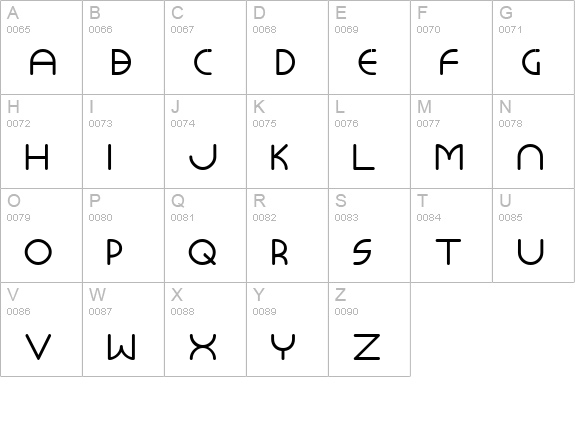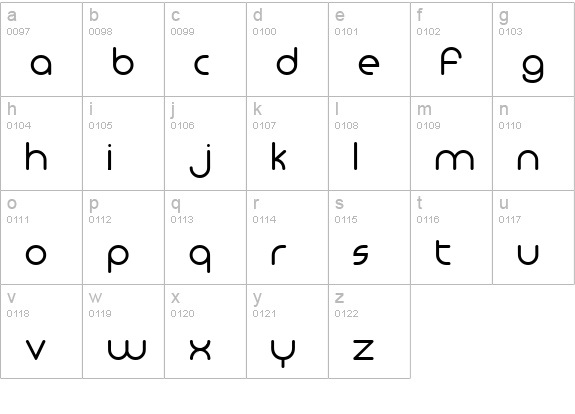
Monoglyceride Font Details
Monoglyceride font is a stunning typeface that exudes elegance and sophistication. With its clean lines and modern aesthetic, Monoglyceride is perfect for a wide range of design projects, from branding to editorial design. Its sleek and stylish appearance makes it a versatile choice for both digital and print applications. What sets Monoglyceride font apart is its unique blend of classic charm and contemporary flair. The font features subtle curves and sharp edges that create a harmonious balance, resulting in a truly eye-catching design. The best part about Monoglyceride font is that it is completely free to download at FontsMarket.com. This means that you can easily access this beautiful typeface and use it in your projects without any cost. Whether you're a professional designer or just starting out, Monoglyceride font is a fantastic addition to your font library. Don't miss out on the opportunity to elevate your designs with Monoglyceride font. Download it today and experience the beauty and versatility of this exceptional typeface.